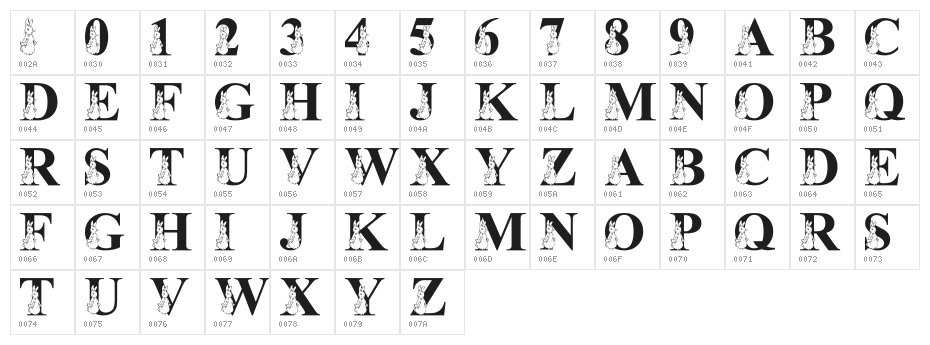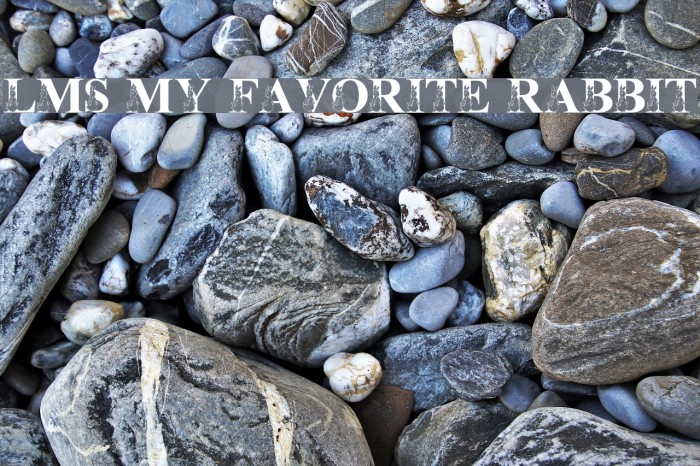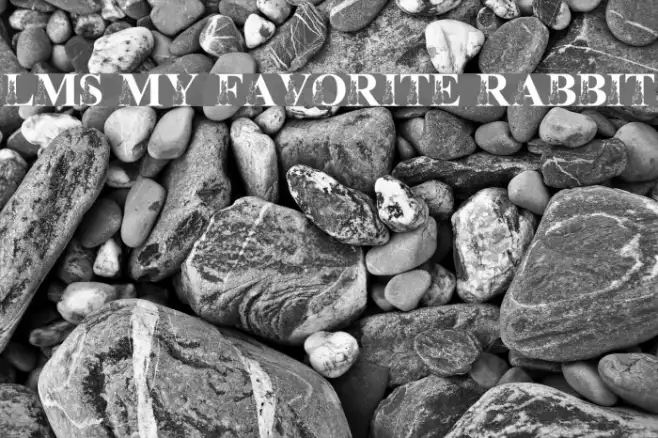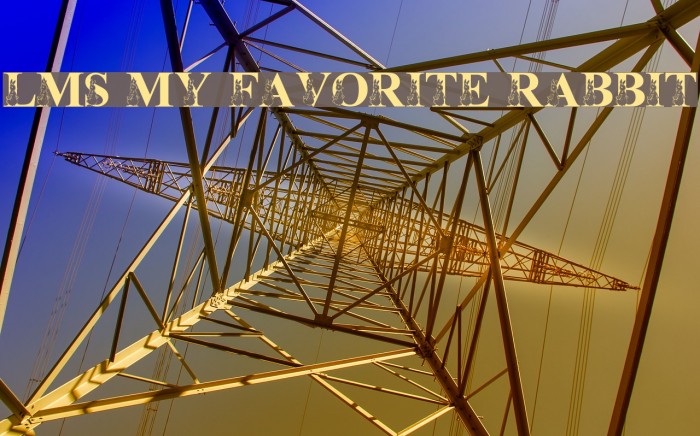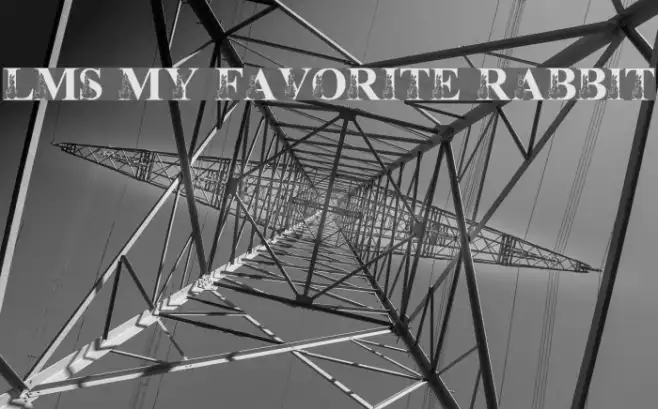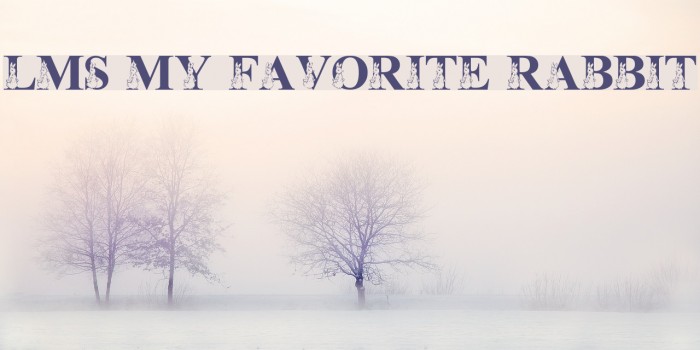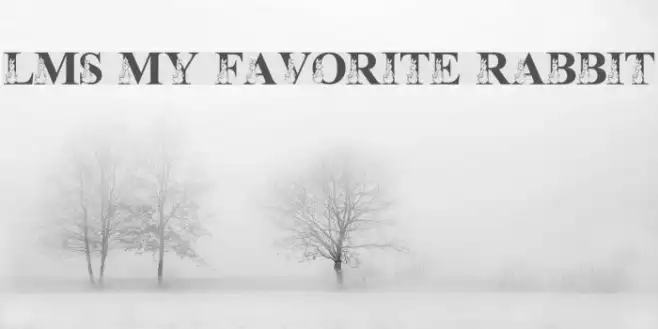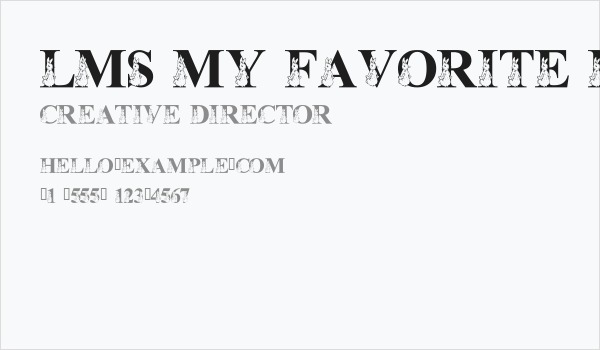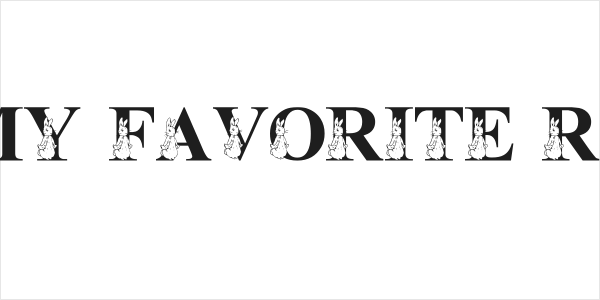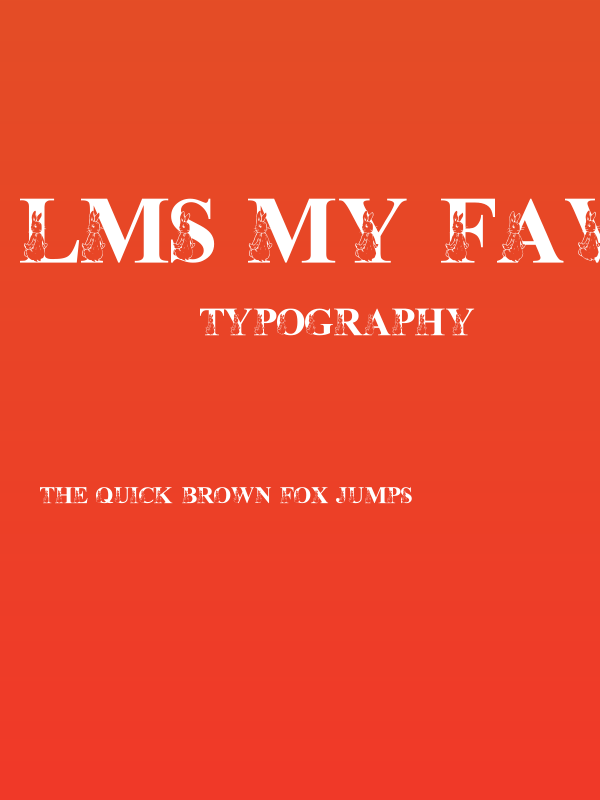
LMS My Favorite Rabbit Font
LMS My Favorite Rabbit Description
This playful and whimsical font features bold, serif letters adorned with charming rabbit illustrations. Each character is uniquely integrated with a rabbit motif, adding a delightful and imaginative touch. The font maintains a classic serif structure, providing a sense of tradition and readability while the decorative elements introduce a fun and engaging aspect. The combination of bold strokes and intricate details makes it suitable for creative and lighthearted projects. Its unique style is perfect for capturing attention and adding a sense of joy and creativity to any design.
| Use Case | Headlines, Logos, Decorative text |
| Proposed Projects | Ideal for children's books, playful branding, greeting cards, and whimsical invitations. |